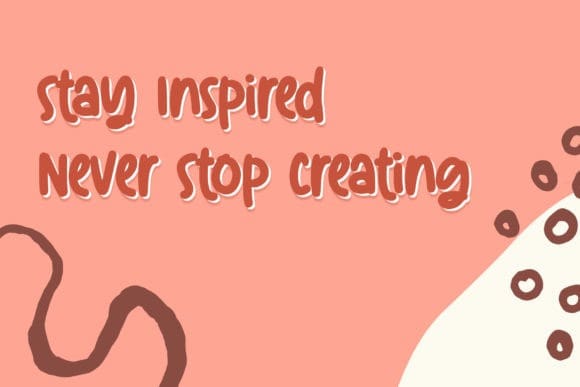
Autumn Shade Font
Autumn Shade Font. Make your crafty design project more unique with this playful font. Suitable for any purpose, combine it with your awesome element and it will look great!